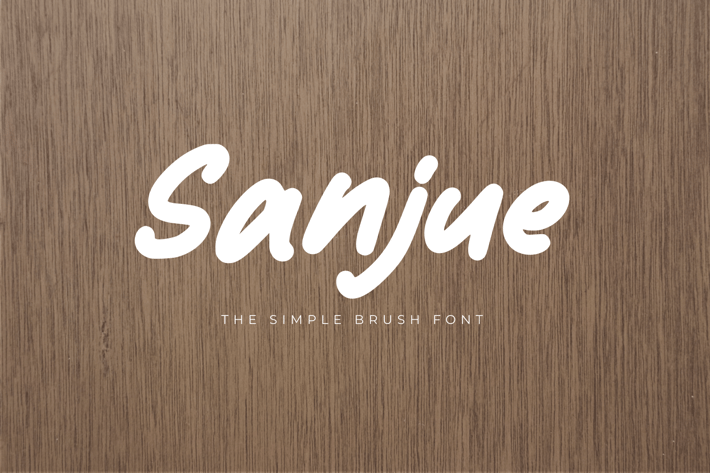
Sanjue - The Simple Brush Font
Sanjue - The Simple Brush Font, it’s perfect for logos, name card, magazine layouts, invitations, headers, movie, cinema or even large-scale artwork.